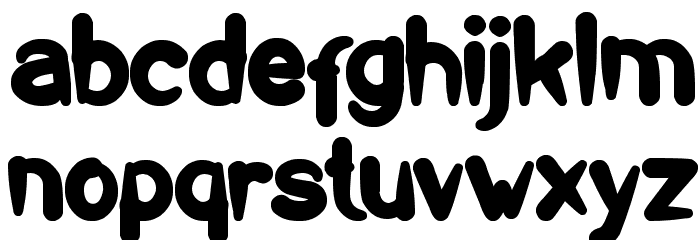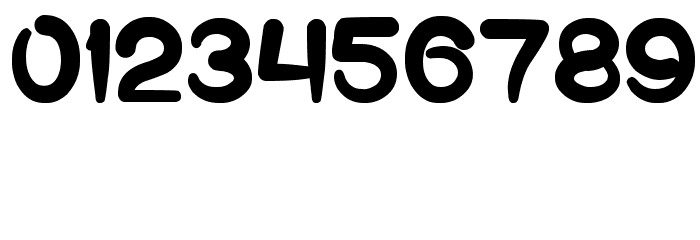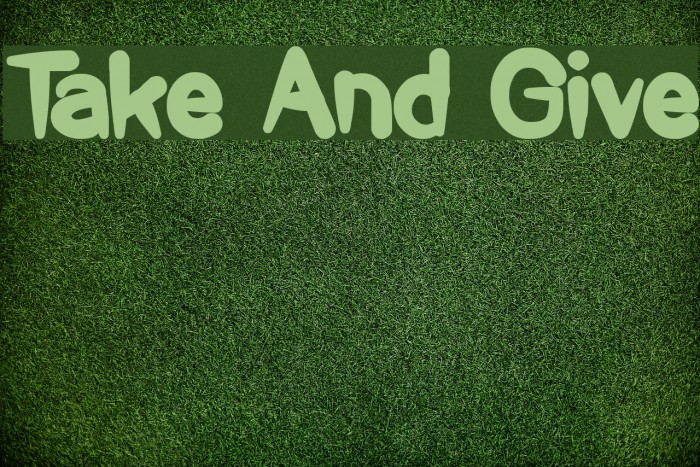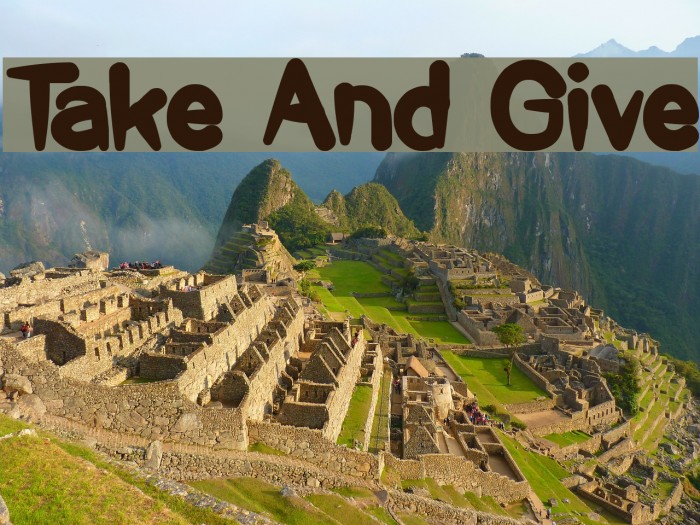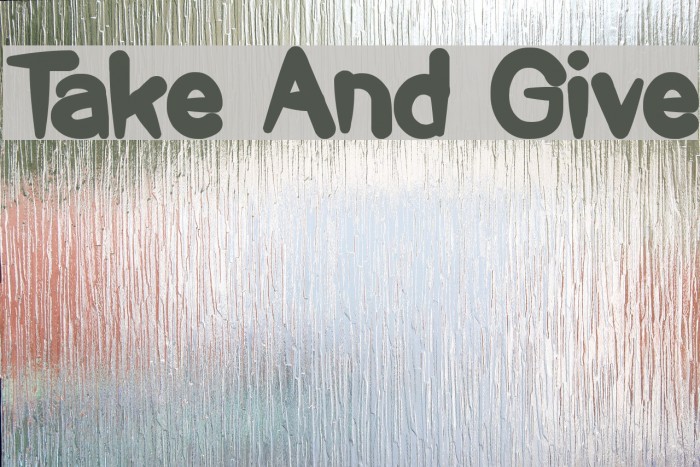
Take And Give Font
This playful and bold font features rounded edges and a thick, uniform stroke that gives it a friendly and approachable appearance. The characters are slightly condensed, enhancing their compact and cohesive look. The uppercase and lowercase letters maintain a consistent style, with a slight variation in height that adds to the font's charm. The numbers are equally bold and rounded, ensuring readability and visual harmony. This font's unique style makes it stand out, while its simplicity ensures it remains legible across various applications.
A playful, bold font with rounded edges and a friendly appearance.
- Proposed Projects: Ideal for children's books, playful branding, posters, and social media graphics.
- Overall Style: Playful